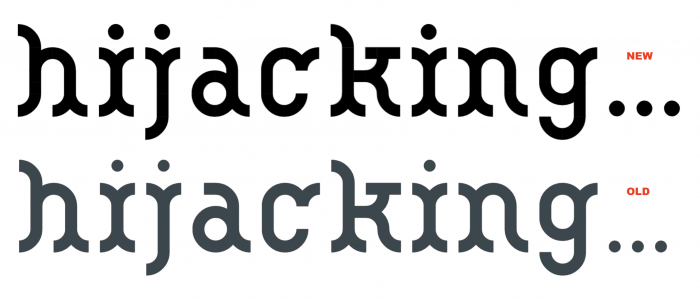
I've looking for a light western font... It works better in the lower case, IMHO.
very nice : )
Lots of interesting glyphs! Those macaroni bricks just rule, don't they?
10/10!
So, what's the story behind you always using the letter z?
@beate: Glad to pleased you with these little glyphs.
--- SPOILER ---
BTW, there is nothing secret about my "z" at the beginning of the names of my fonts:
the names of my first fonts in the FS began with "z" ... and then I've been doing the same thing.
wow marvelous work. kind of modern wood type
bravo! I love it
Congratulations! FontStruct Staff have deemed your FontStruction worthy of special mention. “zummertime eYe/FS” is now a Top Pick.
Another success! Love the sample :)
Another decorative font from your workshop. Wonderful glyphs. I'd like to suggest a few minor changes to consider. They are a matter of taste, not really essential things, but may improve the overall harmony of this font.
The comma (,) and its derivatives: make it simple, without the horizontal stroke.
The period: make it a bit bigger, if possible.
The z: make the top horizontal stroke simple, just bending down.
The small l: flip it vertically.
The t: make it more similar to f,h,l, the same height.
The small s: it's a pain, but you can't do much about the curves.
The %: you did your best.
The &: you can play with, make it spelled out, "Et".
The paragraph (¶): usually goes down to descender level.
The asterisk (*): simple and beautiful.
I hope these will help you. 10/10
Simple. Clean. Macaroni is amazing! Yeeeehaaaaaa....... 10/10
@Frodo7: Dear mentor, thanks for your kindly explanations about my usual mistakes. I'm gonna try to solve them.
This is beautiful — you don’t need me to tell you that — but I wish Fontstruct could do things like correct for things like the size of a dot (especially when used as a tittle) appearing smaller than a square of the same size.  ._________.
@amateur6: Thank you very much for your kind words! You're right about the need for optical correction of the circle size compared to the square. When I made this font I couldn't think of anything to improve this aspect. Now, a few years later, I can try to fix the problem, although I'm not 100% satisfied. I'll soon post a zummertime update here with these changes, some improvements and a handful of new glyphs. I hope you like it.